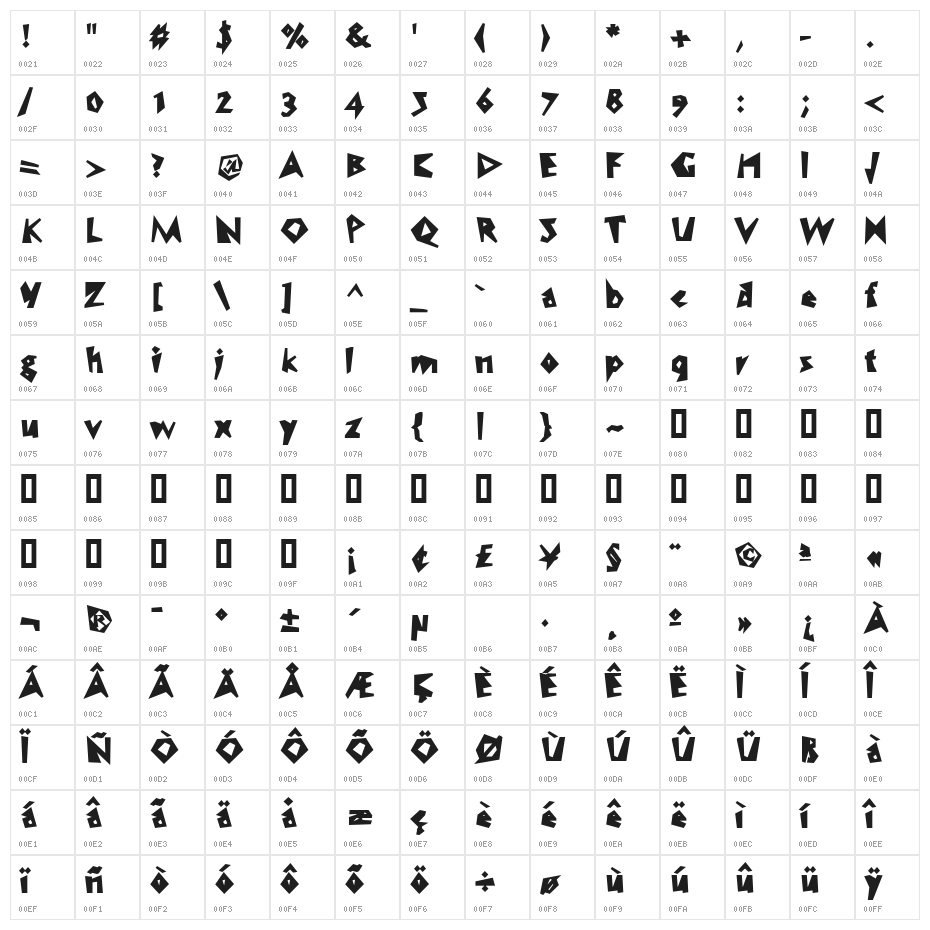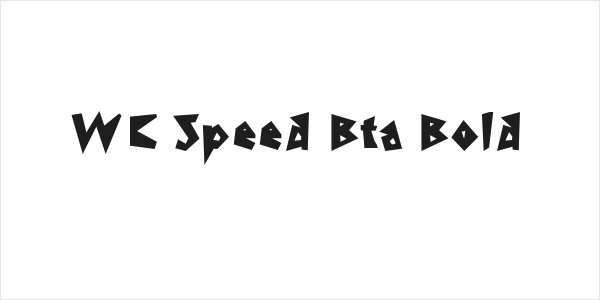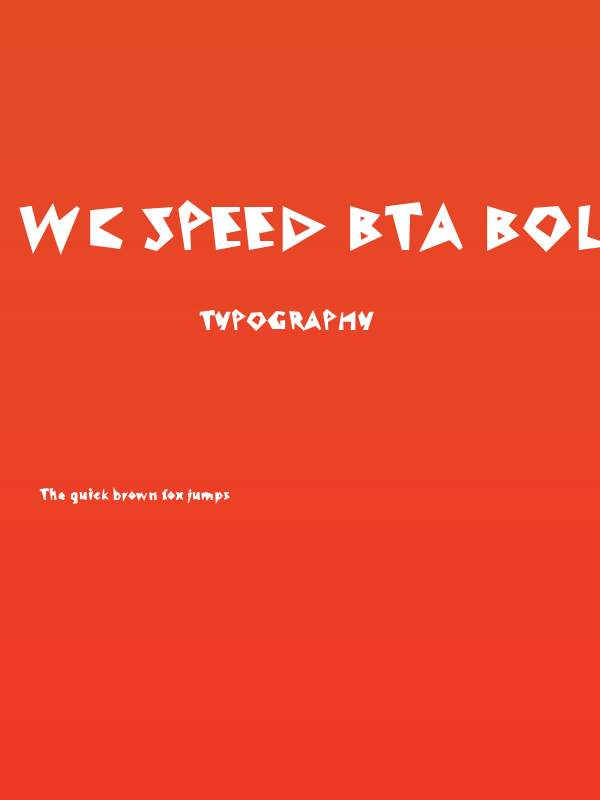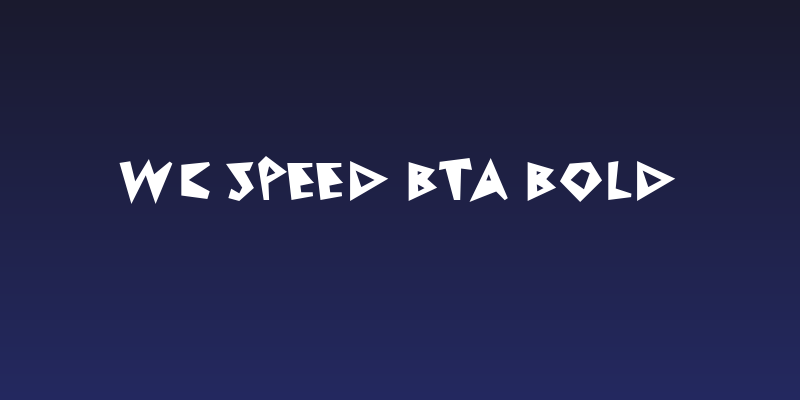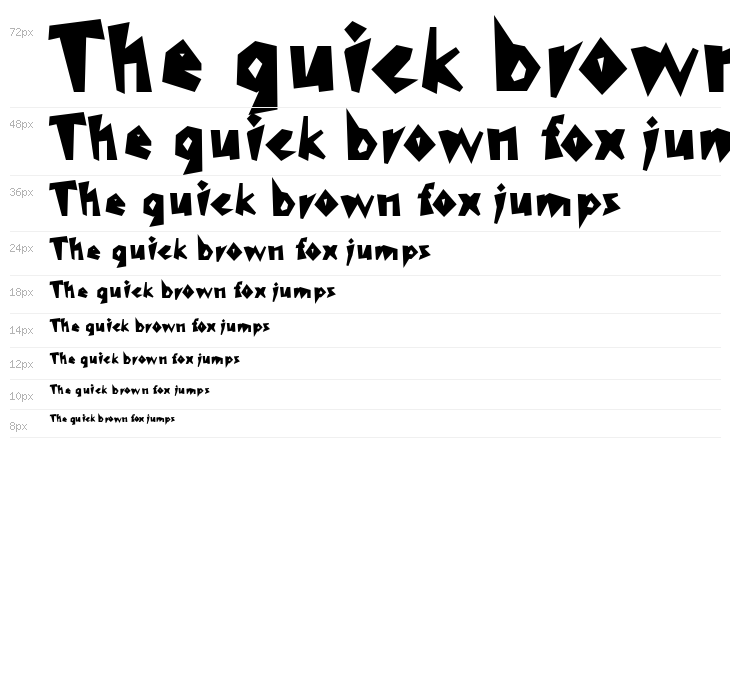
WC Speed Bta Bold Font
WC Speed Bta Bold Description
This font features a bold, angular design with sharp, jagged edges that create a dynamic and energetic appearance. The characters are highly stylized, with exaggerated angles and points that give the font a sense of movement and speed. The uppercase and lowercase letters maintain a consistent style, with the uppercase being slightly more pronounced. Numbers and special characters follow the same angular theme, ensuring a cohesive look across all glyphs. This font is ideal for projects that require a bold statement or a sense of urgency and excitement.
| Proposed Projects | Ideal for sports branding, action movie posters, video game titles, and dynamic advertisements. |